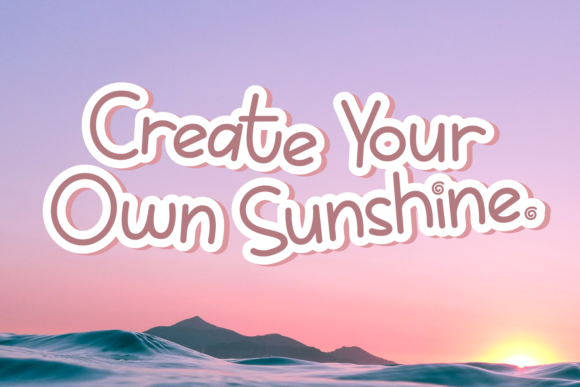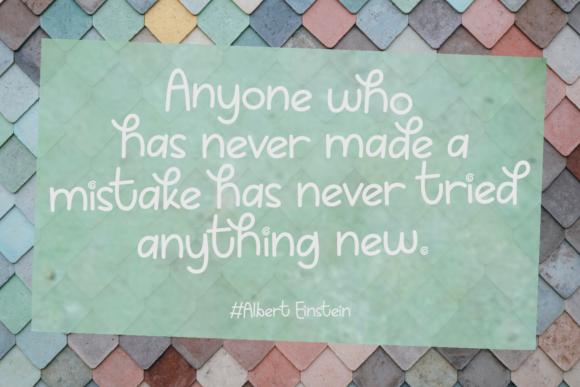
Miklo Font
db-ku.com - Script & Handwritten -- Miklo is a whimsical and simple handwritten font. It embodies playfulness and authenticity and is the perfect choice for any children activity or school project.